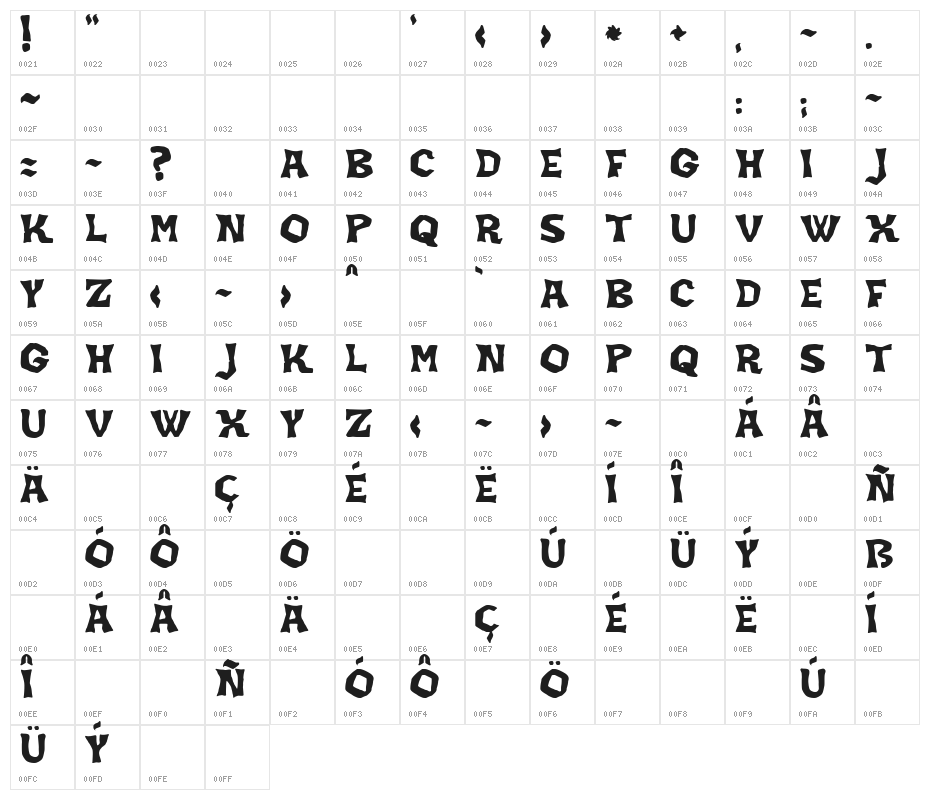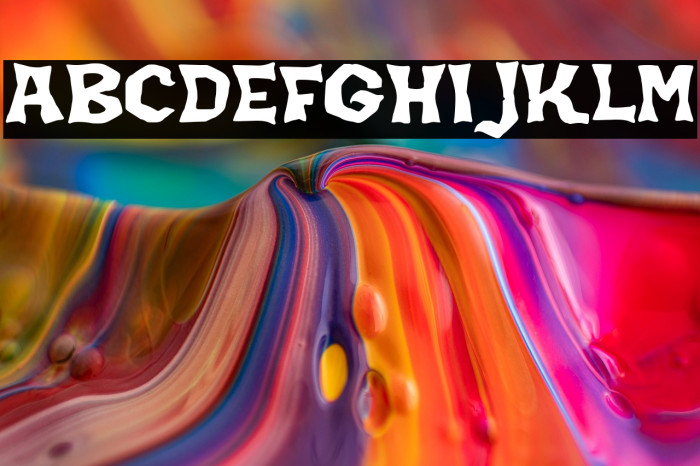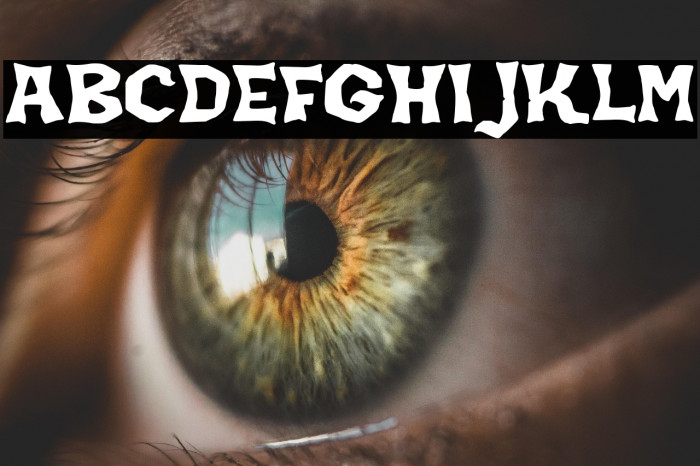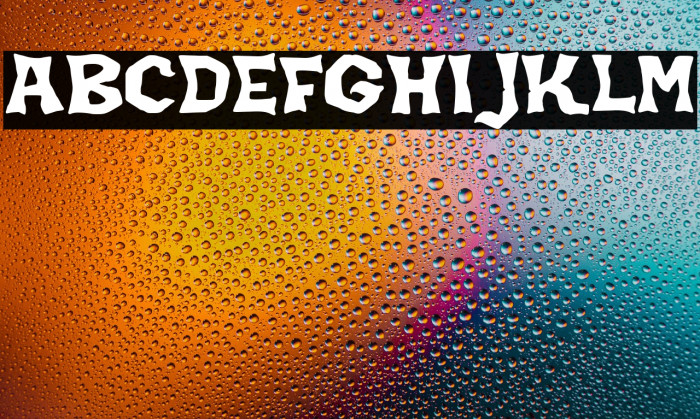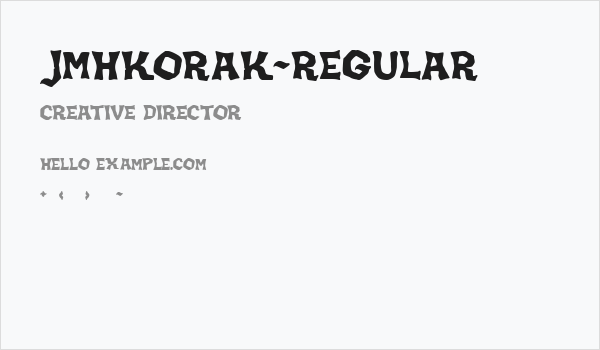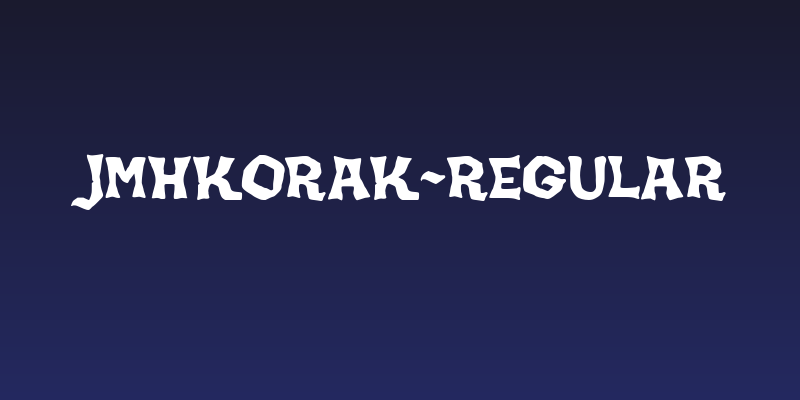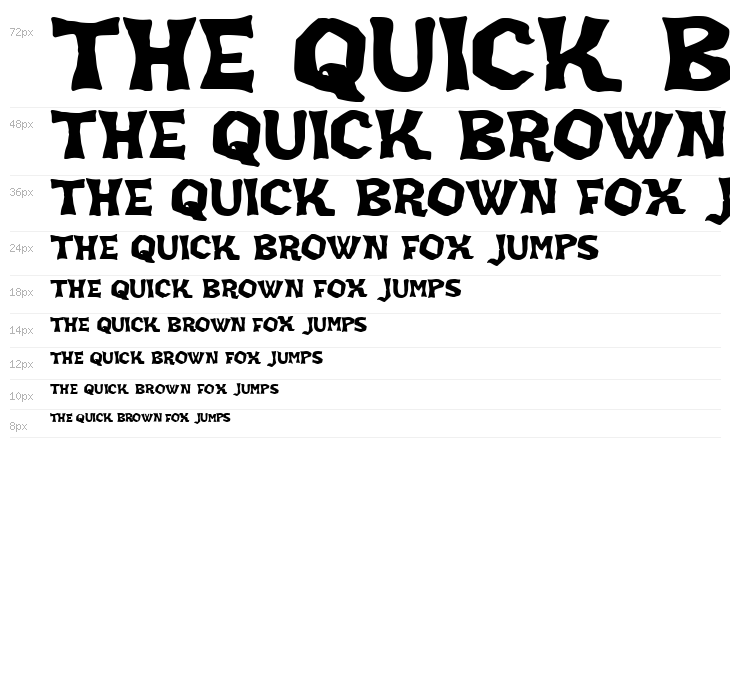
JMHKORAK-Regular Font
JMHKORAK-Regular Description
This font features a bold and dynamic style with sharp, angular edges and a slightly irregular form, giving it a hand-crafted appearance. The uppercase letters are prominent and commanding, while the lowercase letters maintain a consistent style, enhancing the overall cohesiveness. The numbers and special characters follow the same bold and expressive design, making them stand out. This font is ideal for projects that require a strong visual impact, such as posters, headlines, or branding materials. Its unique style can add a touch of creativity and flair to any design.
| Proposed Projects | Ideal for posters, headlines, branding, and creative design projects. |